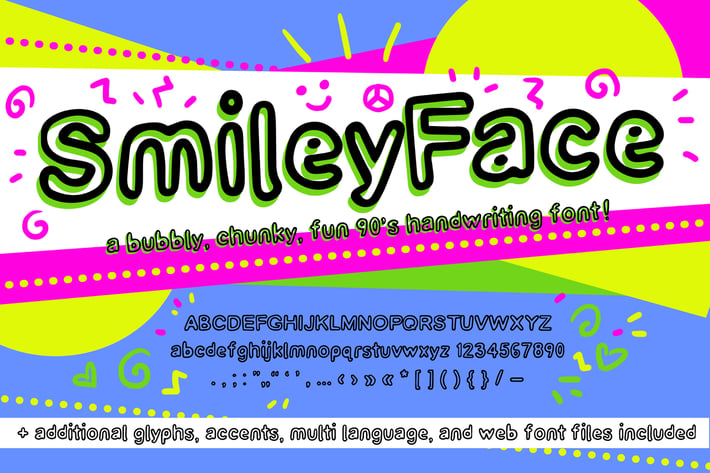
Smiley Face Retro Font (90s Handwriting Web Fonts)
Introducing Smiley Face, a retro font with 90's influence. If you love 90's aesthetic fonts, different fonts that play with spacing, handwriting fonts, and just playful fonts, check this one out! I was inspired by the kids shows I grew up with in the 90s. I love a cute handwritten font. This casual font is really fun in different colors. Try it as your next display font!
Every letter was lovingly drawn by me. It includes even more glyphs than featured, including various accents, extended Latin characters, and support for other languages! Web fonts included too, for your website usage.